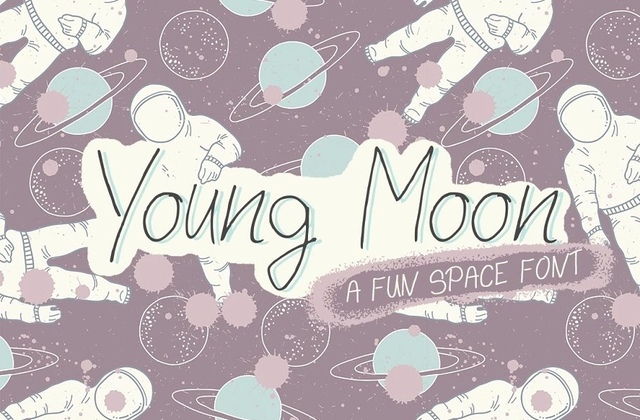
Young Moon Font
Young Moon Font is perfect for branding, poster designs, social media graphics, invitations, and creative editorial layouts. Its modern and playful style adds a unique, youthful flair to any project.
What makes Young Moon Font exciting is its quirky, eye-catching letterforms that balance creativity with readability. The font’s distinctive style ensures your designs stand out while maintaining a professional appearance.
The Young Moon Font family includes Regular, Bold, Italic, and Decorative variations, giving designers flexibility to craft dynamic and visually engaging compositions.